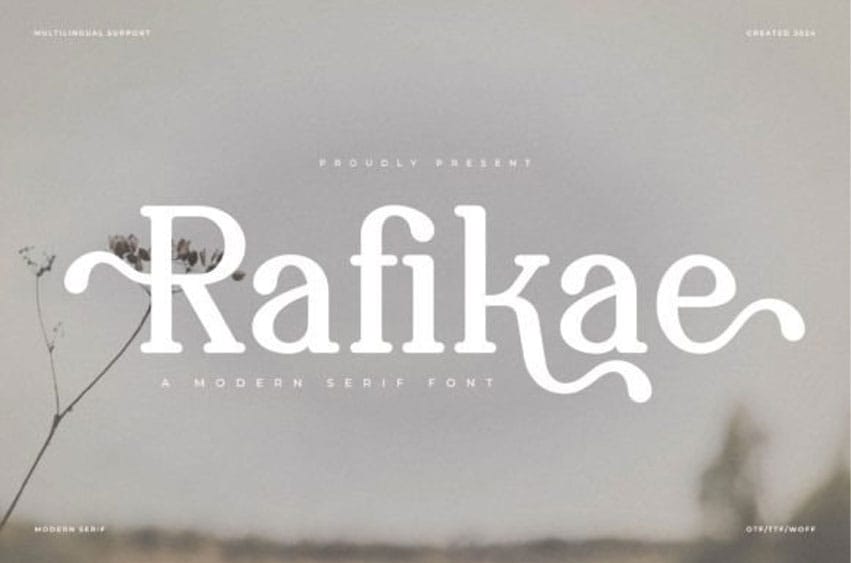
Rafikae Font is a modern serif font that combines classic elegance with a clean, contemporary look.
Its sharp lines and stylish details make it perfect for adding a touch of sophistication to any design.